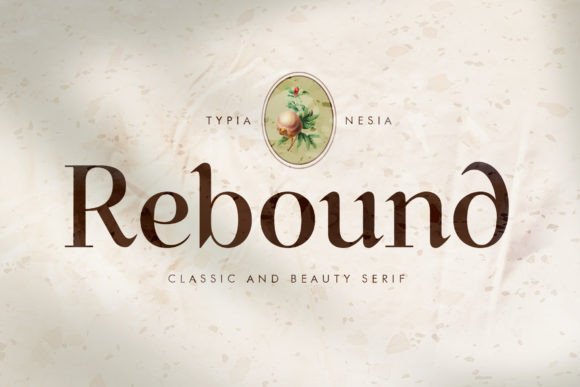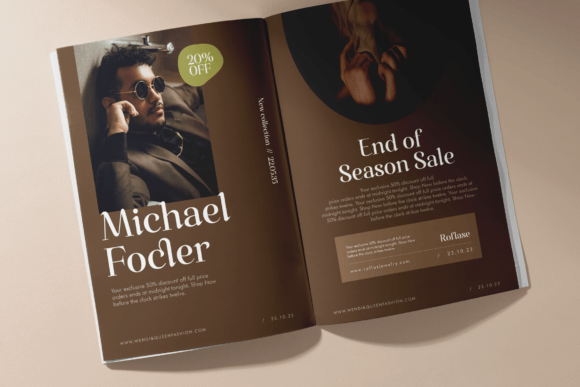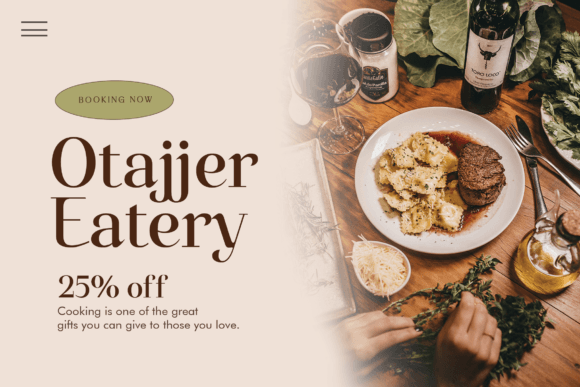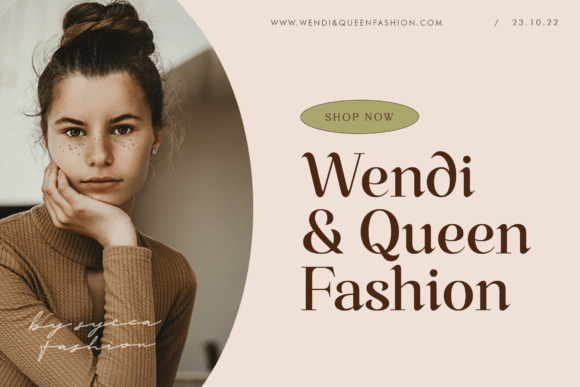
Rebound Font: Elegant Serif for Logo Design & Luxury Branding
About the Rebound Font
Add a touch of class to your work with the Rebound Font, a truly exceptional typeface. Rebound – Classic Elegant Serif – Vintage Fantasy Font – Royal and Luxury Font
Rebound Serif is perfect for your upcoming projects such as luxury logo and branding, classy editorial design, woman magazine, cosmetic brand, fashion promotional, art gallery branding, museum, boutique branding, stationery design, blog design, modern advertising design, card invitation, art quote, home decor, fantasy movie/game, novel/book/cover title, special events, and any more.
Rebound’s elegant serif design excels in headlines, logos, and short, impactful text blocks. It’s ideal for branding projects aiming for a sophisticated, vintage feel, particularly within the fashion, beauty, or luxury goods sectors. Avoid using it for extensive body copy or UI elements; its ornate details are better suited for display purposes.
Pair Rebound with a clean sans-serif like Lato for a balanced contrast, allowing Rebound’s elegance to shine while maintaining readability. Alternatively, a geometric sans-serif such as Roboto would create a modern juxtaposition, updating the vintage feel. For a more luxurious aesthetic, consider a delicate script font as a secondary element.
Rebound projects a refined, classic personality, conveying a sense of timelessness and quality. Its vintage inspiration gives it a unique charm, appropriate for brands seeking to project heritage and sophistication.
Rebound Font Usage Examples
Rebound Font Example